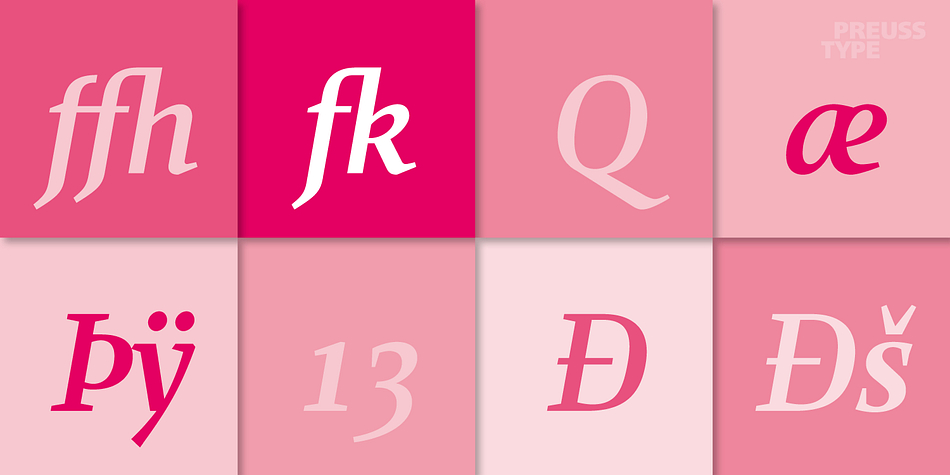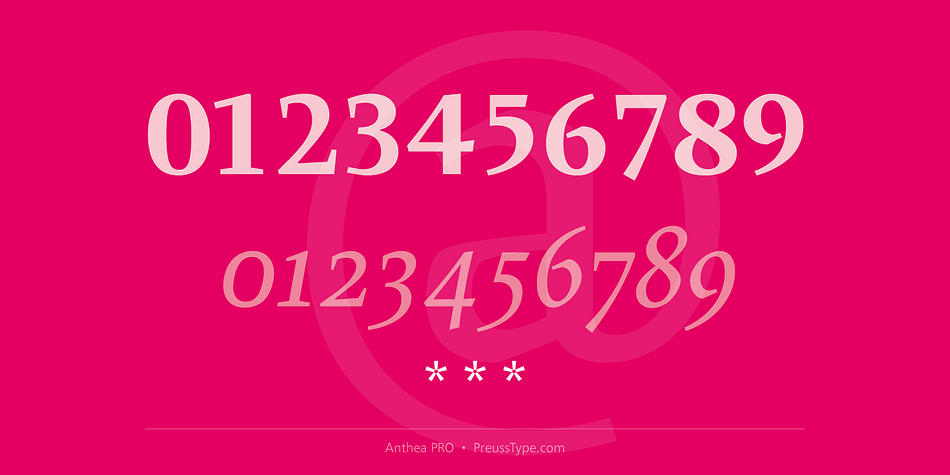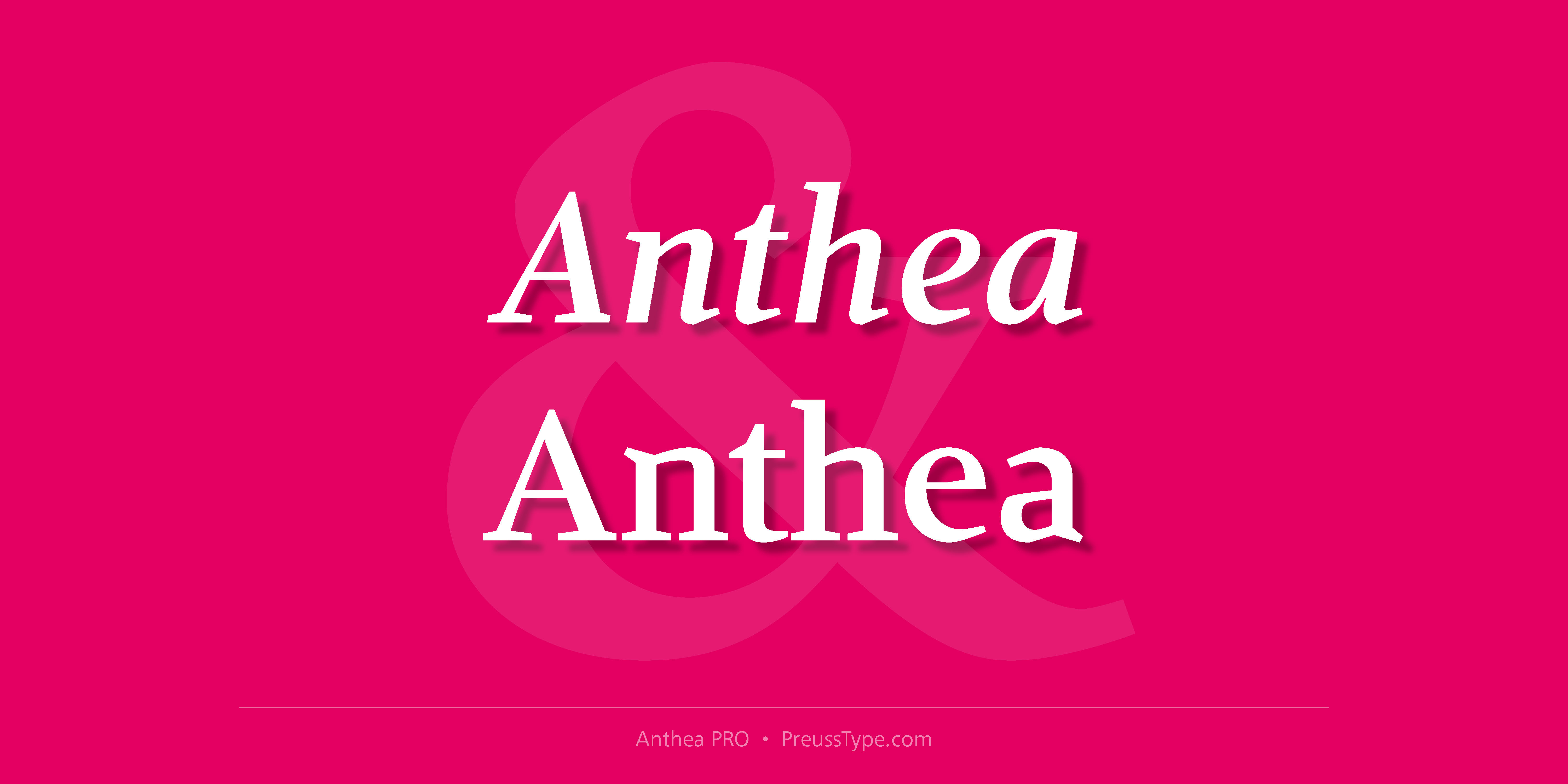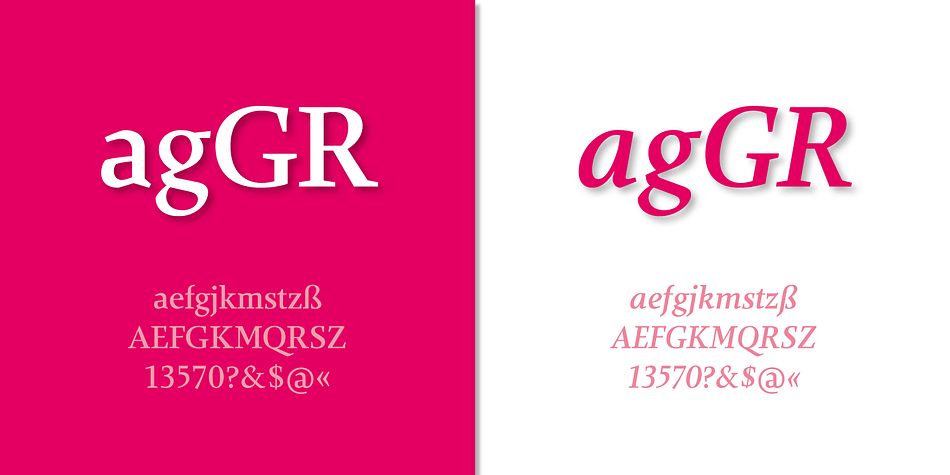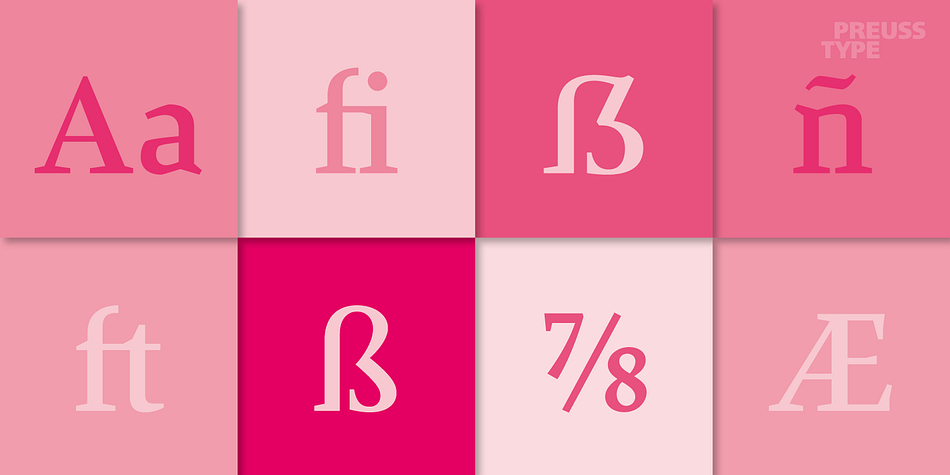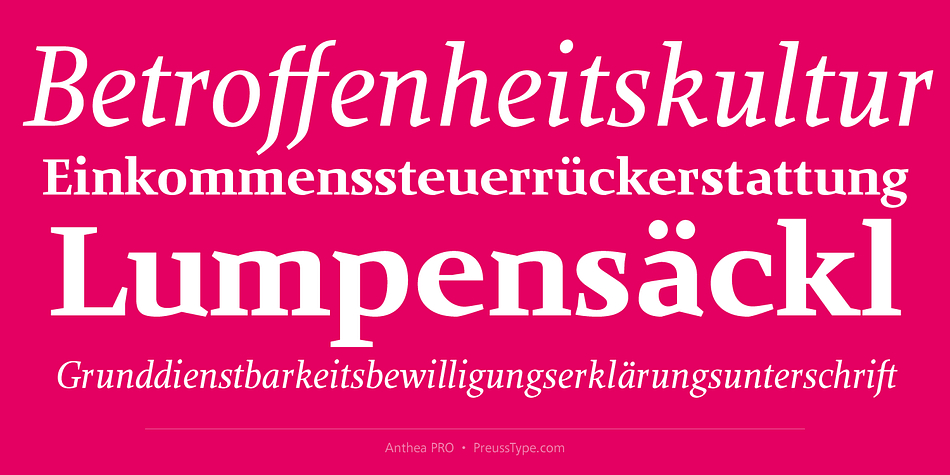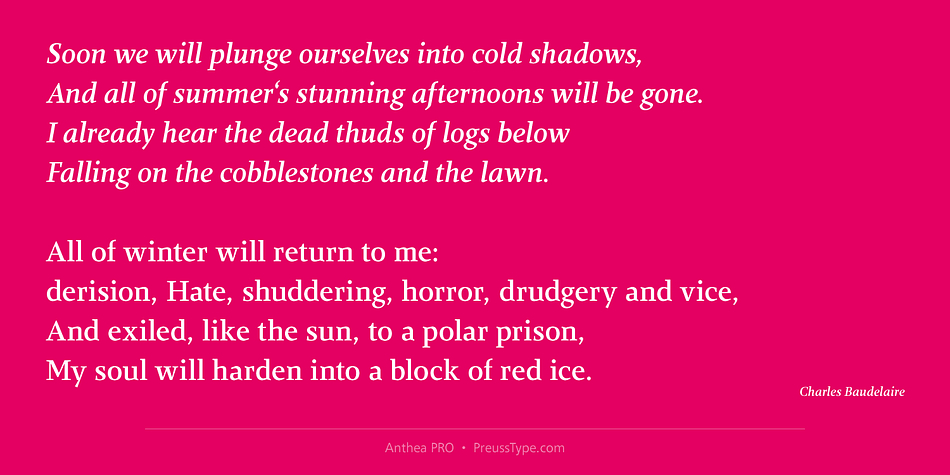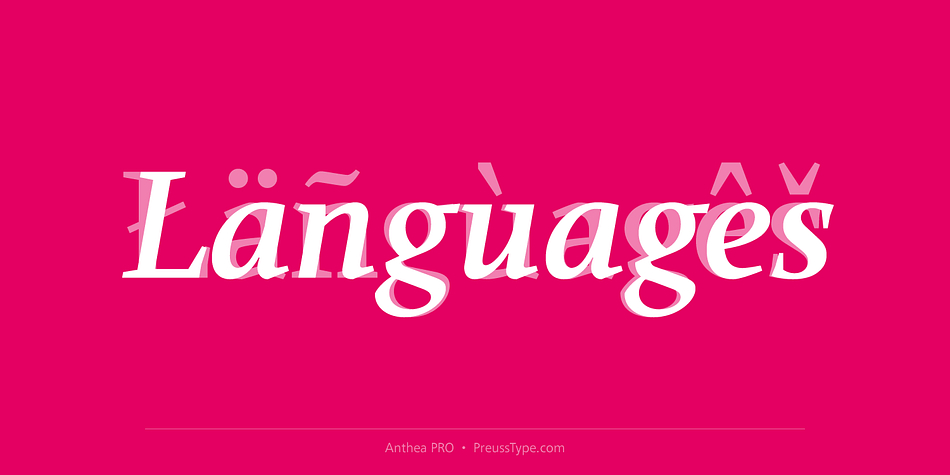
Anthea PRO is a serif font family. This typeface has twelve styles and was published by preussTYPE.
The Anthea family is a multi-purpose typeface with large wedge-formed serifs. Its letters have large x-height and wide-open counterforms. Some joins have been opened up, too – between the straights and the diagonals of ‘K’ and ‘k,’ as well as the vertical center of the ‘R,’ for instance.
Anthea’s letterforms have a higher stroke-contrast model, one that is typical for serif typefaces that are intended for use in lengthy passages of text.
Indeed, Anthea is a highly readable text face and will look clear even when used in less-than-optimal printing situations (cheaper paper and ink, high-speed presses, etc.). In smaller sizes, Anthea’s wedge-shaped serifs won’t suffer any loss of detail.
In fact, wedges of this sort are a hallmark of contemporary serif type design.
Anthea is an excellent serif choice for use in book design or editorial design work, as well as in magazines, packaging, and publication design applications.